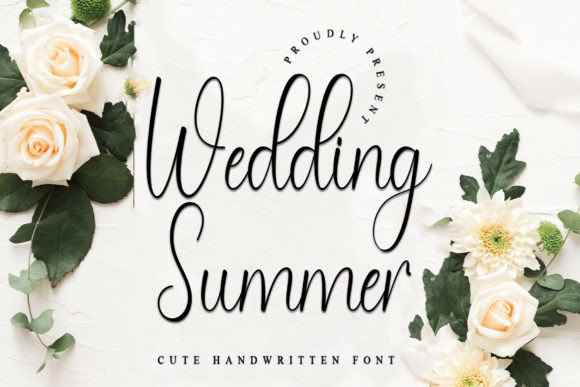
Journey into a world of elegance and sophistication with Wedding Summer Font, a captivating script font that exudes timeless beauty. Inspired by the enduring allure of classic calligraphy, Wedding Summer is meticulously crafted to elevate your designs with its graceful strokes and impeccable form.
Immerse yourself in the charm of Wedding Summer's balanced and varied design, carefully conceived to enhance the visual appeal of your projects. This font is a versatile masterpiece, lending its charm to a myriad of creations, from enchanting wedding invitations to captivating posters. Its versatility knows no bounds, extending to branding projects, social media posts, and product packaging.
With Wedding Summer Font, you'll effortlessly evoke a sense of romance and nostalgia. Its flowing curves and delicate details add an air of sophistication that will leave your audience spellbound. Whether you're designing wedding invitations, creating heartfelt love letters, or crafting whimsical posters, Wedding Summer will transform your words into works of art.
Unleash your creativity and embrace the limitless possibilities of Wedding Summer Font. Its PUA encoding unlocks a treasure trove of stunning glyphs and ligatures, empowering you to add intricate details and flourishes to your designs. With effortless ease, you'll create captivating compositions that captivate and inspire.
Indulge in the timeless elegance of Wedding Summer Font and elevate your designs to new heights. Its contemporary atmosphere and impeccable form will leave an unforgettable impression on your audience, ensuring your projects radiate with beauty and sophistication. Experience the magic of Wedding Summer today and unlock the boundless potential of your creativity.